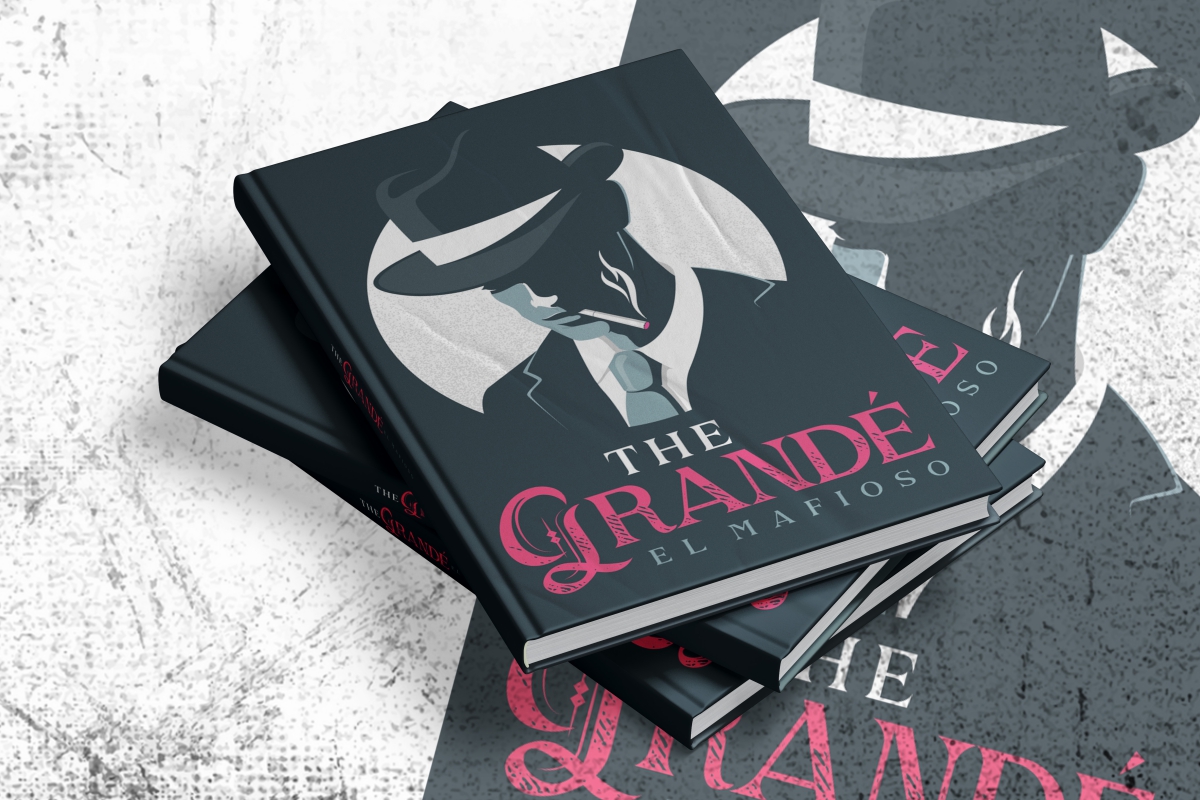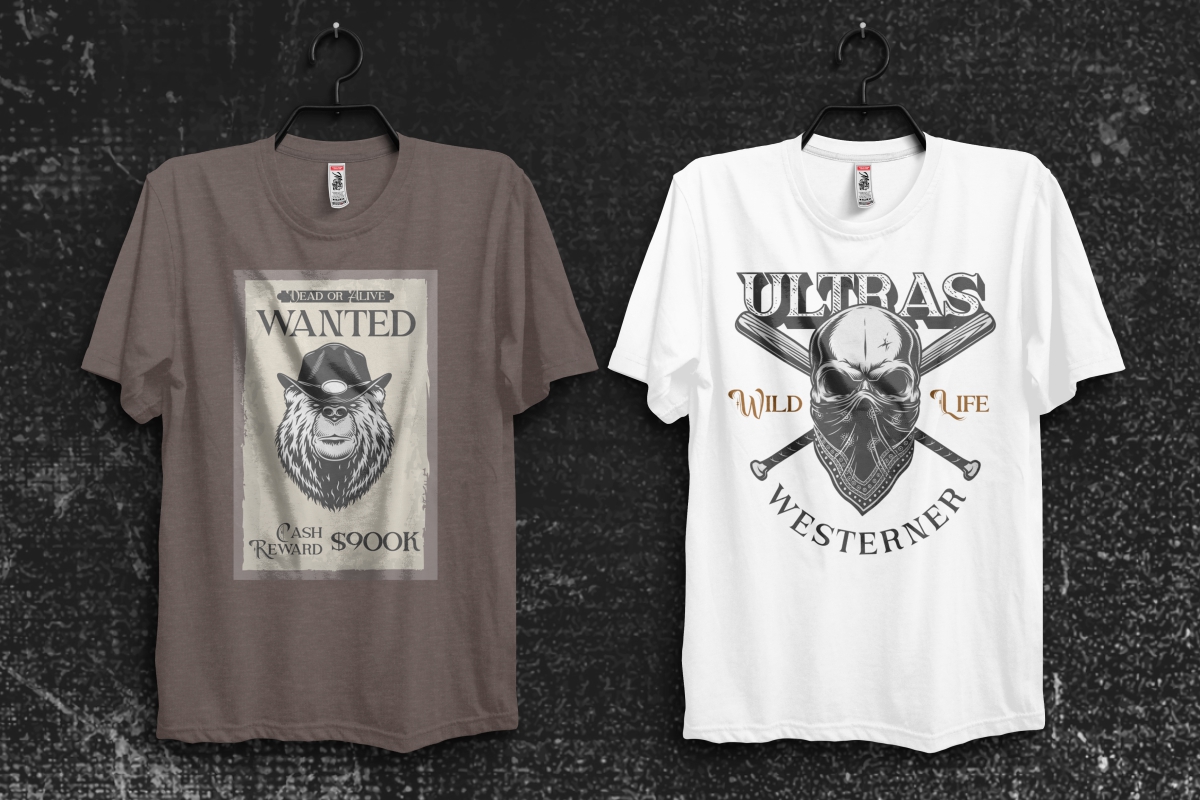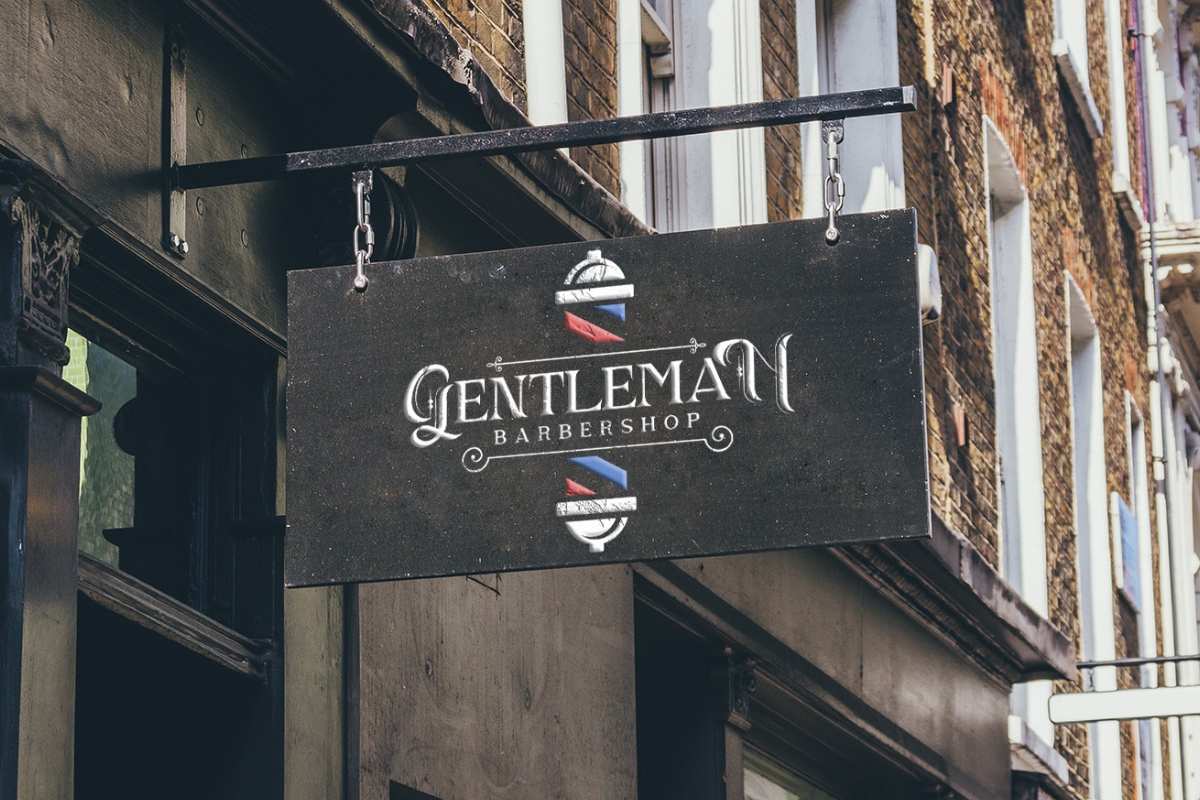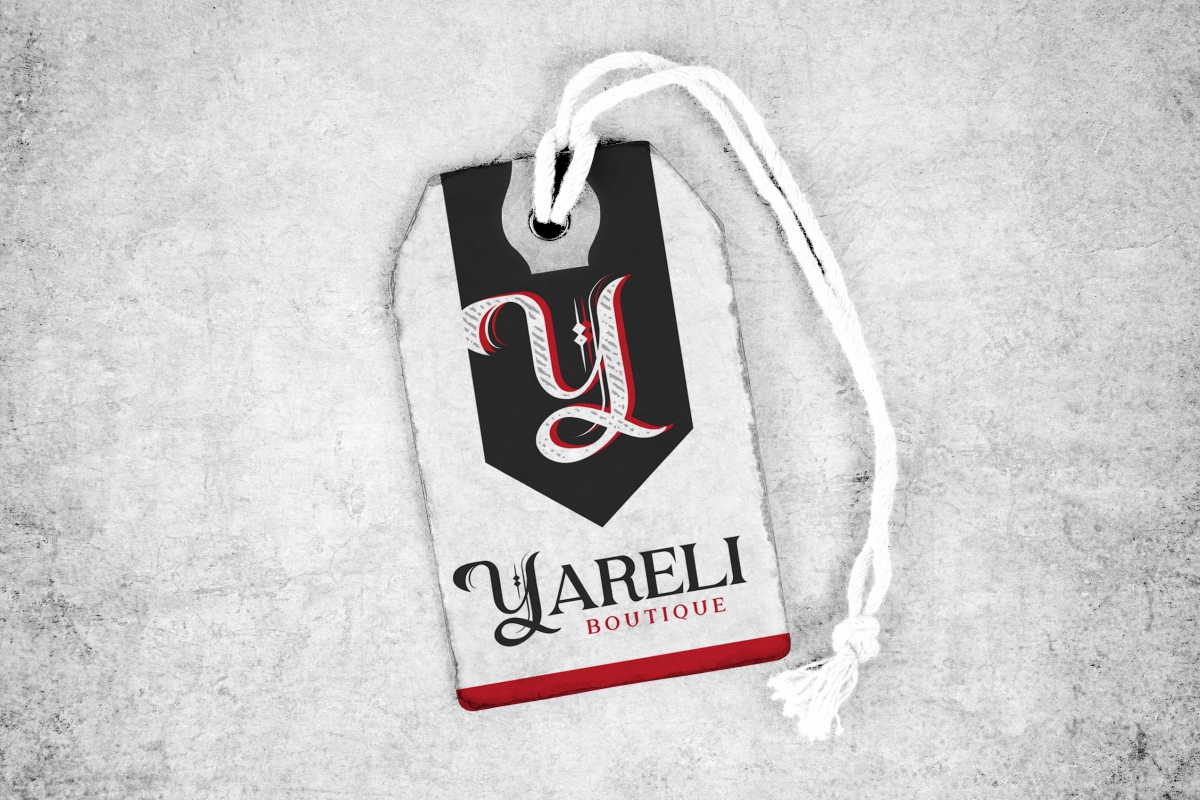
Angel Bandit Font
Angel Bandit Serif Font
It’s an elegant blackletter font with simple letter shapes. The font is inspired from medieval era with its own uniqueness that can bring classic luxurious styles. The font will be awesome for logo branding, poster, products packaging, signage, title, fashion and more!